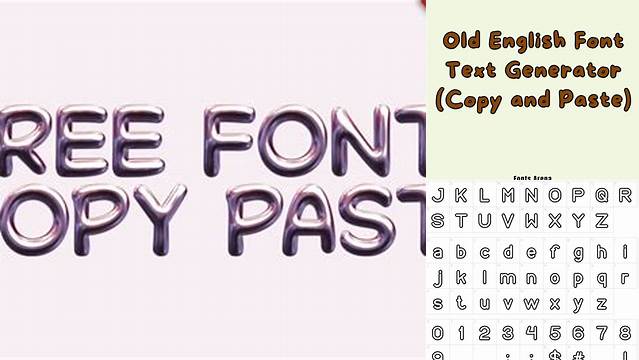
Stylish Text: Font Keyboard - Free Copy & Paste Guide
Hey guys! Ever wanted to spice up your social media posts, messages, or documents with cool and unique fonts? Well, you're in luck! With the rise of font keyboards and online font generators, it's now easier than ever to add a touch of personality to your text. In this guide, we'll dive deep into the world of font keyboard free copy and paste, exploring everything from how they work to the best tools available and even some creative ideas for using them. So, buckle up and get ready to transform your text into eye-catching masterpieces!
1. Understanding Font Keyboards
So, what exactly is a font keyboard? Simply put, it's a keyboard application that provides you with a variety of stylish and unique fonts that you can use directly from your smartphone or tablet. Instead of being limited to the standard system fonts, font keyboard free copy and paste apps offer a wide array of options, including cursive fonts, bold fonts, fancy fonts, and more. These keyboards usually work by using Unicode characters or symbols to mimic different font styles. Unicode is a universal character encoding standard that assigns a unique number to every character, allowing it to be displayed consistently across different devices and platforms.
The beauty of using a font keyboard lies in its simplicity and convenience. You can easily switch between different fonts with just a few taps, and the copied text will retain its stylish appearance when pasted into various applications, such as social media platforms, messaging apps, email clients, and document editors. However, it's important to note that the appearance of these fonts may vary slightly depending on the device and platform being used. While most platforms support a wide range of Unicode characters, some platforms may not render certain characters correctly, resulting in the font appearing as a generic font or a box character.
To ensure consistent font rendering, it's advisable to test the copied text on different devices and platforms before sharing it widely. If you encounter any compatibility issues, you can consider using alternative font options or converting the text into an image to preserve its visual appearance. Additionally, keep in mind that excessive use of fancy fonts may make your text difficult to read, especially for people with visual impairments. Therefore, it's best to use these fonts sparingly and strategically to enhance the overall message without compromising readability.
2. Benefits of Using Font Keyboards
Using a font keyboard free copy and paste offers a plethora of benefits. First and foremost, it allows you to express your creativity and individuality. By using unique fonts, you can make your social media posts, messages, and documents stand out from the crowd. Whether you want to convey a sense of playfulness, elegance, or professionalism, there's a font out there that perfectly matches your style and personality. Font keyboards also enhance the visual appeal of your content. Let's be real, guys, plain text can be kinda boring. But by adding some stylish fonts, you can instantly make your text more engaging and eye-catching. This can be especially useful for social media posts, where you only have a few seconds to grab someone's attention.
In the world of digital marketing, visual appeal is paramount. Font keyboards enable you to create visually appealing content that attracts and retains your audience's attention. Eye-catching headlines, captivating captions, and stylish call-to-actions can significantly improve your engagement rates and drive more traffic to your website or social media profiles. Font keyboards can also help you reinforce your brand identity. By using a consistent set of fonts across all of your marketing materials, you can create a cohesive and recognizable brand image that resonates with your target audience. This can be particularly important for businesses that want to establish a strong brand presence and differentiate themselves from their competitors.
Font keyboards can also enhance readability. While it may seem counterintuitive, using the right font can actually improve the readability of your text. For example, using a sans-serif font for body text can make it easier to read on screens, while using a serif font for headings can add a touch of elegance and sophistication. Additionally, font keyboards can save you time and effort. Instead of manually searching for and copying font symbols from various websites, you can simply use a font keyboard to access a wide range of fonts directly from your keyboard. This can be a huge time-saver, especially if you frequently use stylish fonts in your work.
3. Top Font Keyboard Apps for iOS and Android
Okay, so you're convinced that font keyboard free copy and paste is the way to go. But which apps are the best? Here are a few top contenders for both iOS and Android:
- Fonts Keyboard: This app is a popular choice for both iOS and Android users, offering a wide variety of stylish fonts and symbols. It's easy to use and integrates seamlessly with most apps.
- Cool Fonts: Another great option, Cool Fonts provides a diverse selection of fonts, as well as the ability to create your own custom fonts.
- Stylish Text: Stylish Text is more than just a font keyboard; it also offers a variety of other text-styling options, such as text decorations and glitch text.
When choosing a font keyboard app, consider factors such as the variety of fonts offered, the ease of use, and the compatibility with your favorite apps. It's also a good idea to read user reviews to get an idea of the app's reliability and performance. Many font keyboard apps offer a free trial period, so you can try out the app before committing to a subscription. This allows you to assess whether the app meets your needs and preferences. Additionally, be mindful of the permissions that the app requests. Some font keyboard apps may request access to your contacts, messages, or other personal information. It's important to choose an app that you trust and that respects your privacy.
4. Online Font Generators: An Alternative
If you don't want to install a font keyboard app, you can also use online font generators. These websites allow you to type in your text and then generate a variety of stylish fonts that you can copy and paste. While they may not be as convenient as font keyboards, they can be a good option if you only need to use stylish fonts occasionally.
30. Ethical Considerations for Font Usage